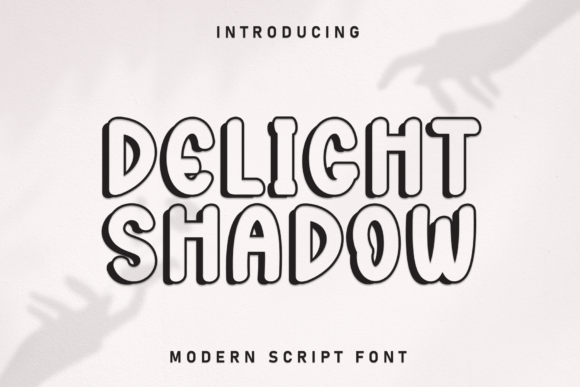
Introduction to Delight Shadow Font
Delight Shadow is a bold, playful font with a built-in 3D shadow effect.
This font pops off the page and brings energy to any designโ€”perfect for posters, banners, childrenโ€™s books, or eye-catching event flyers Its bubbly characters and layered shadow style offer a sense of depth and fun.
Key Features of Delight Shadow Font